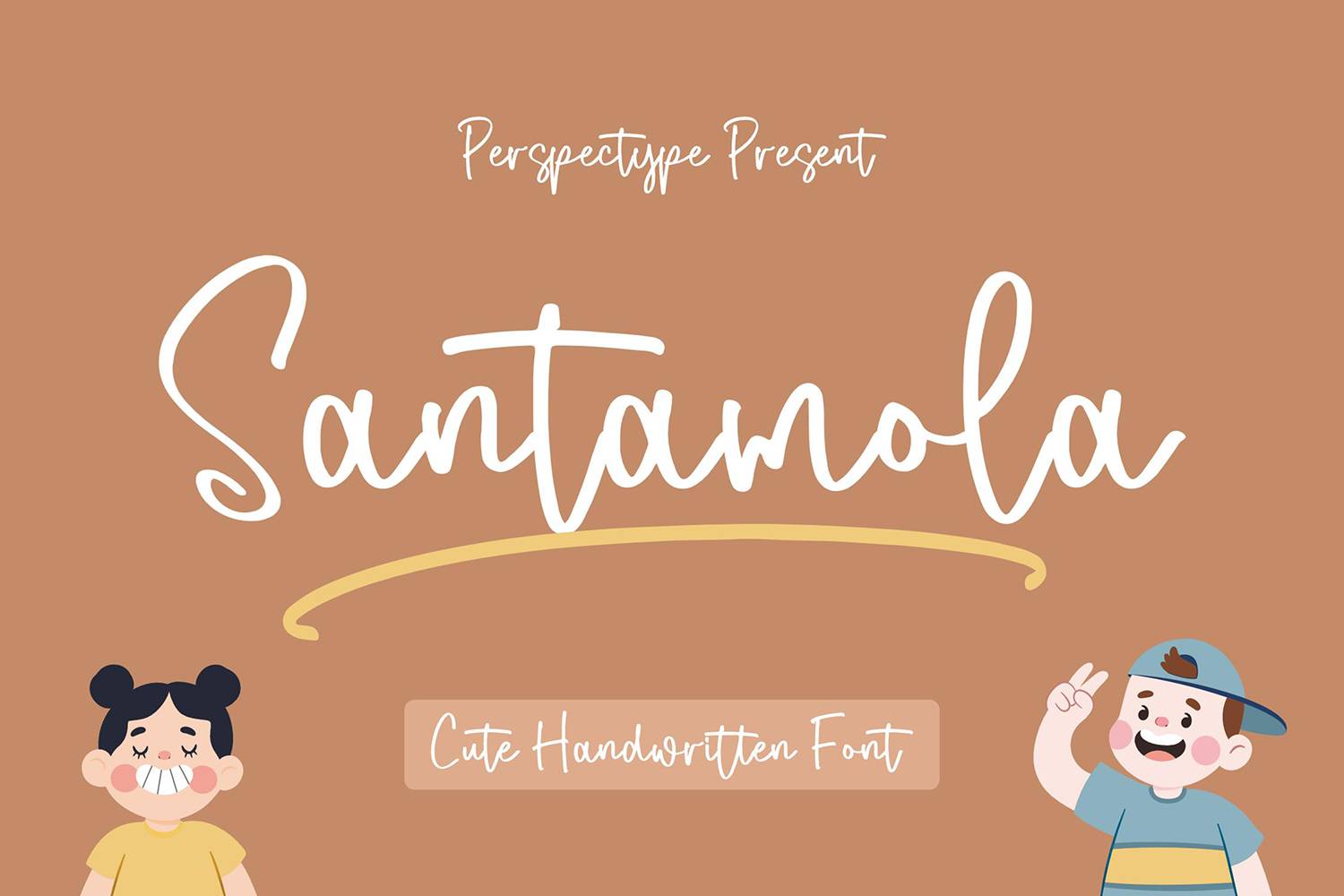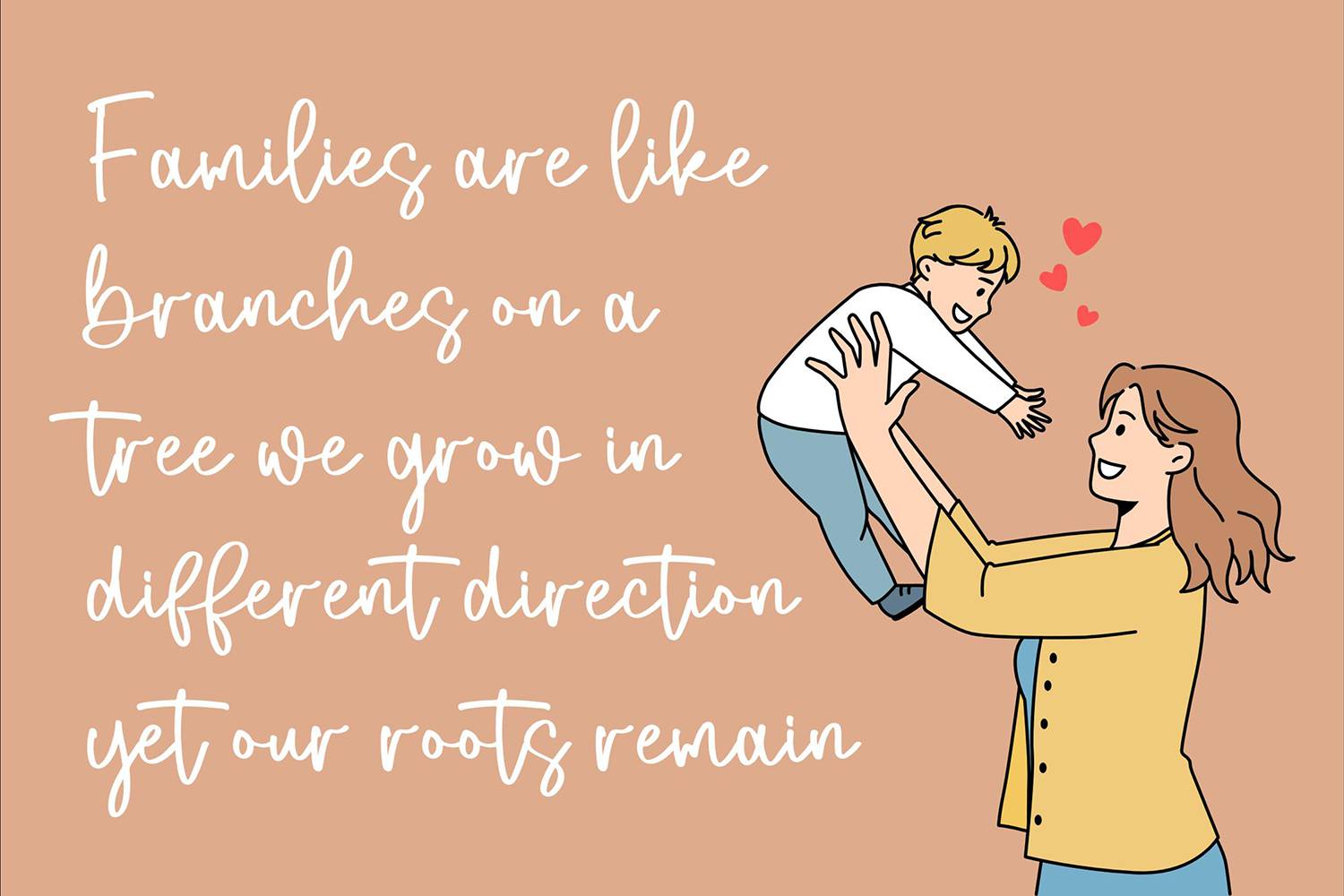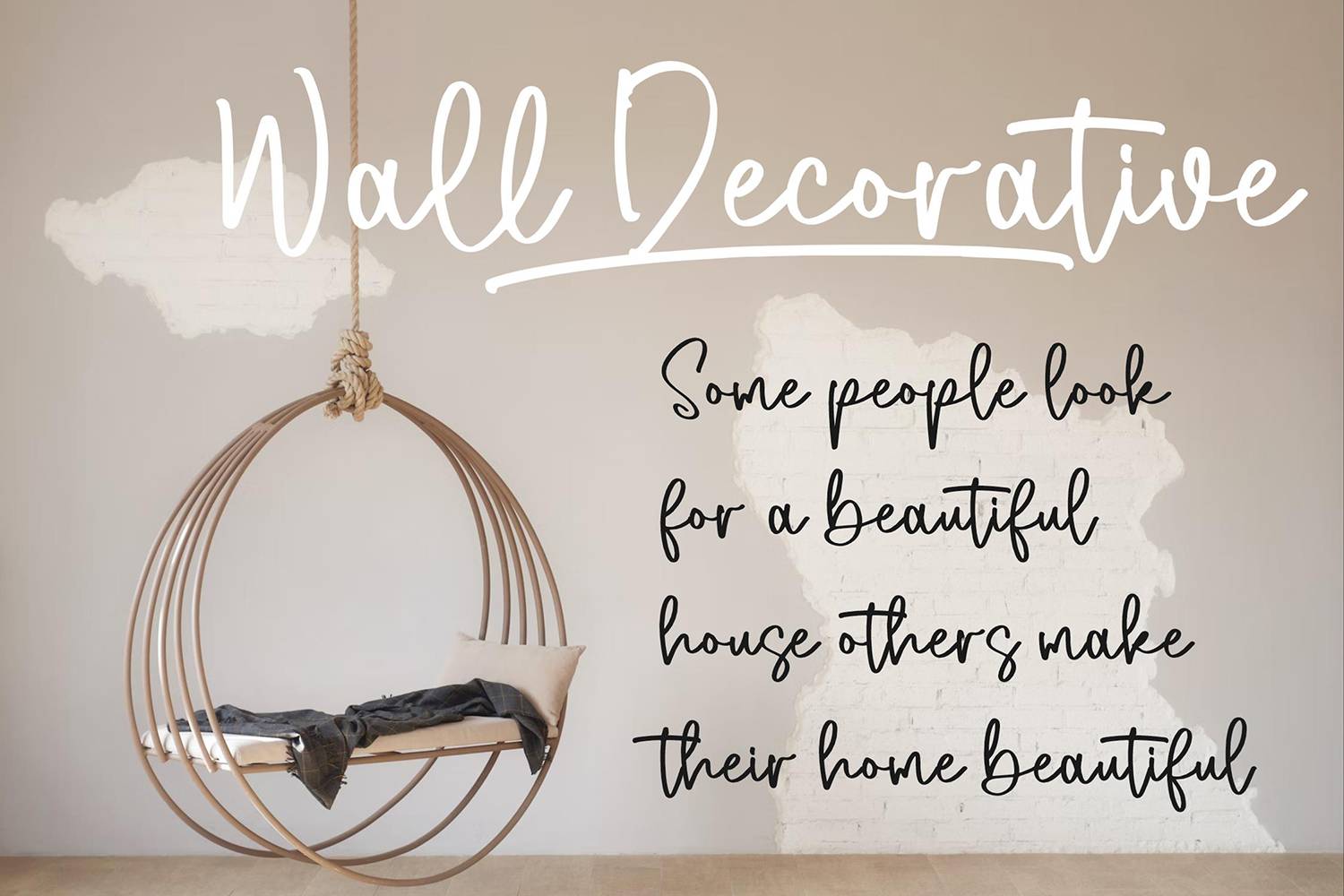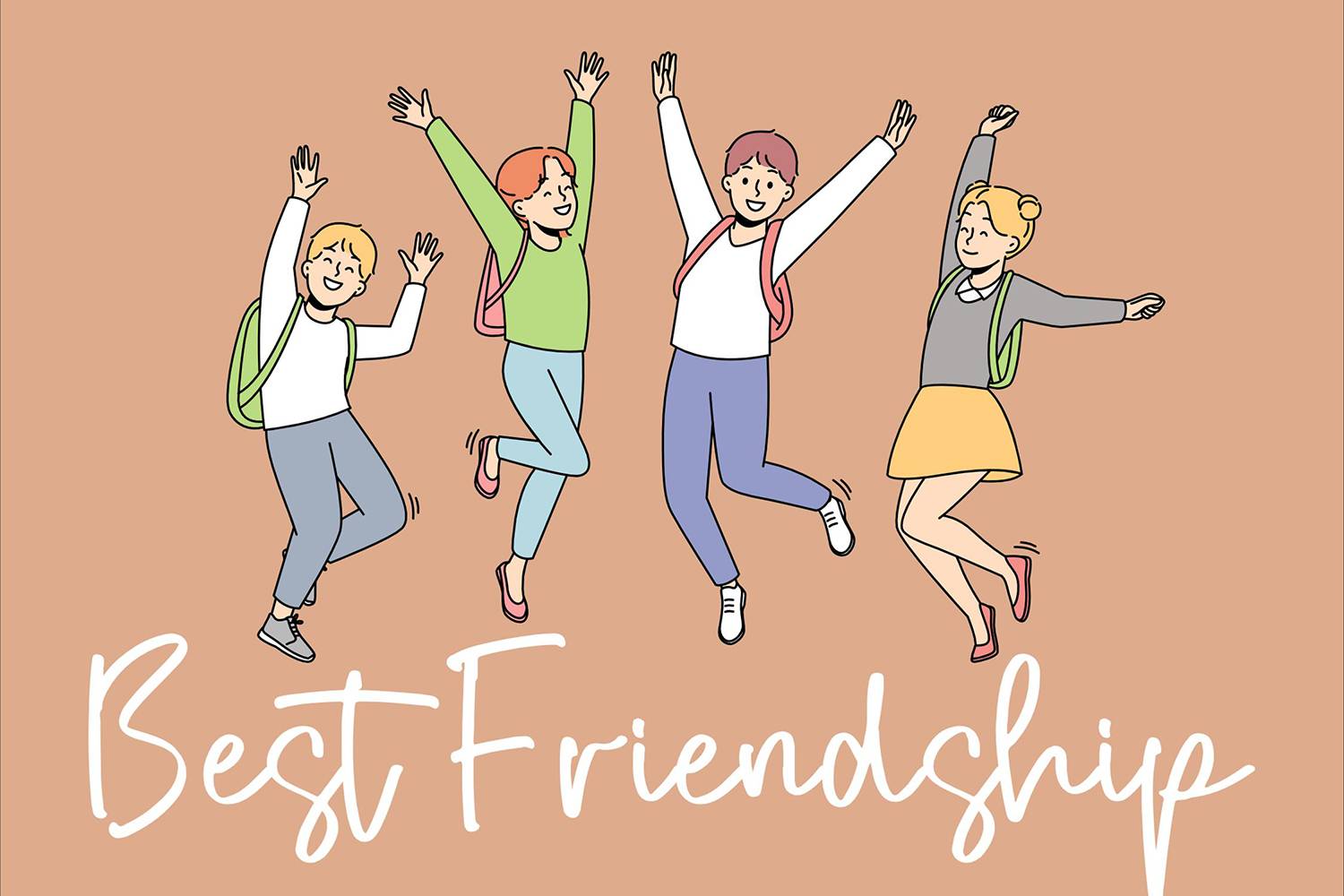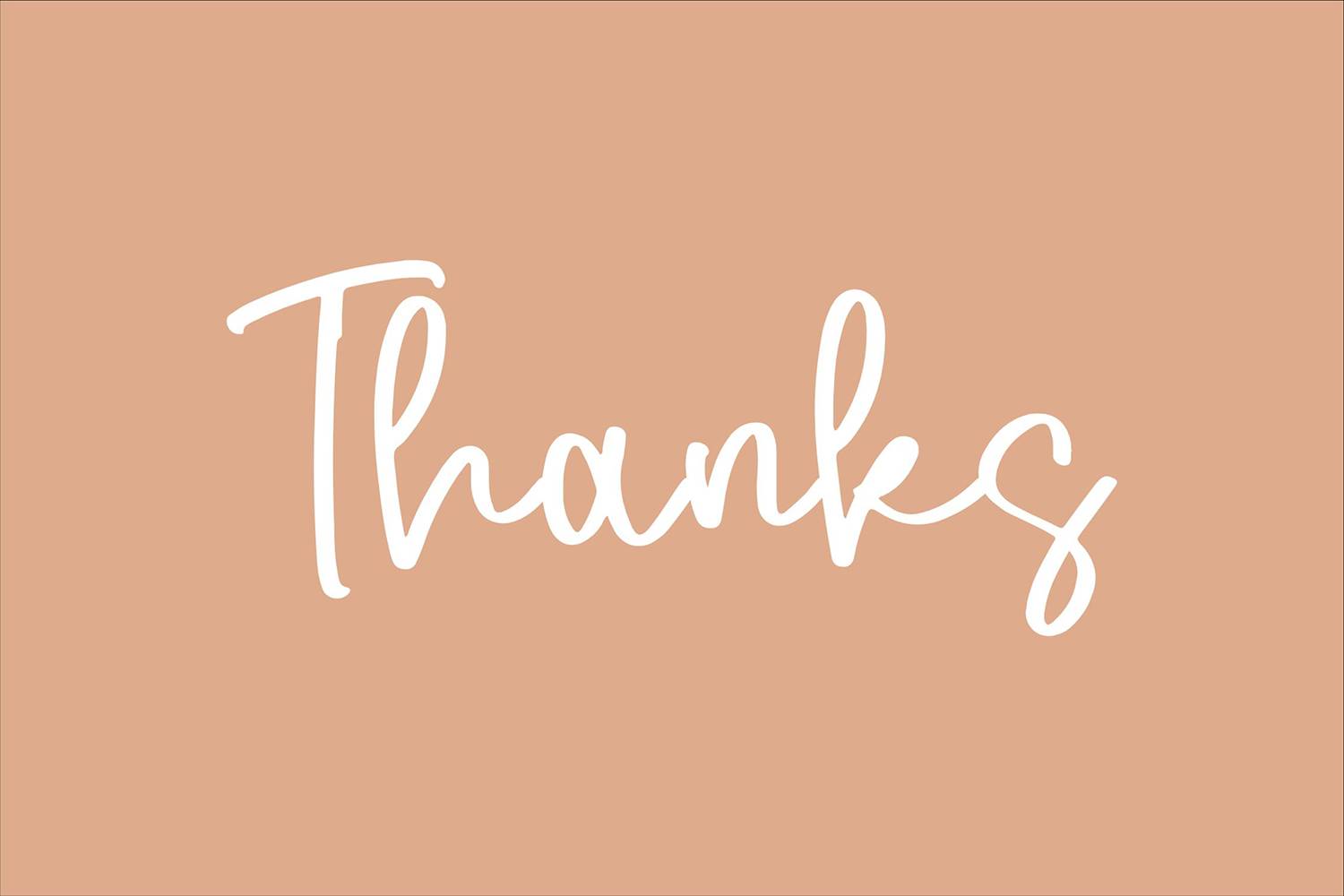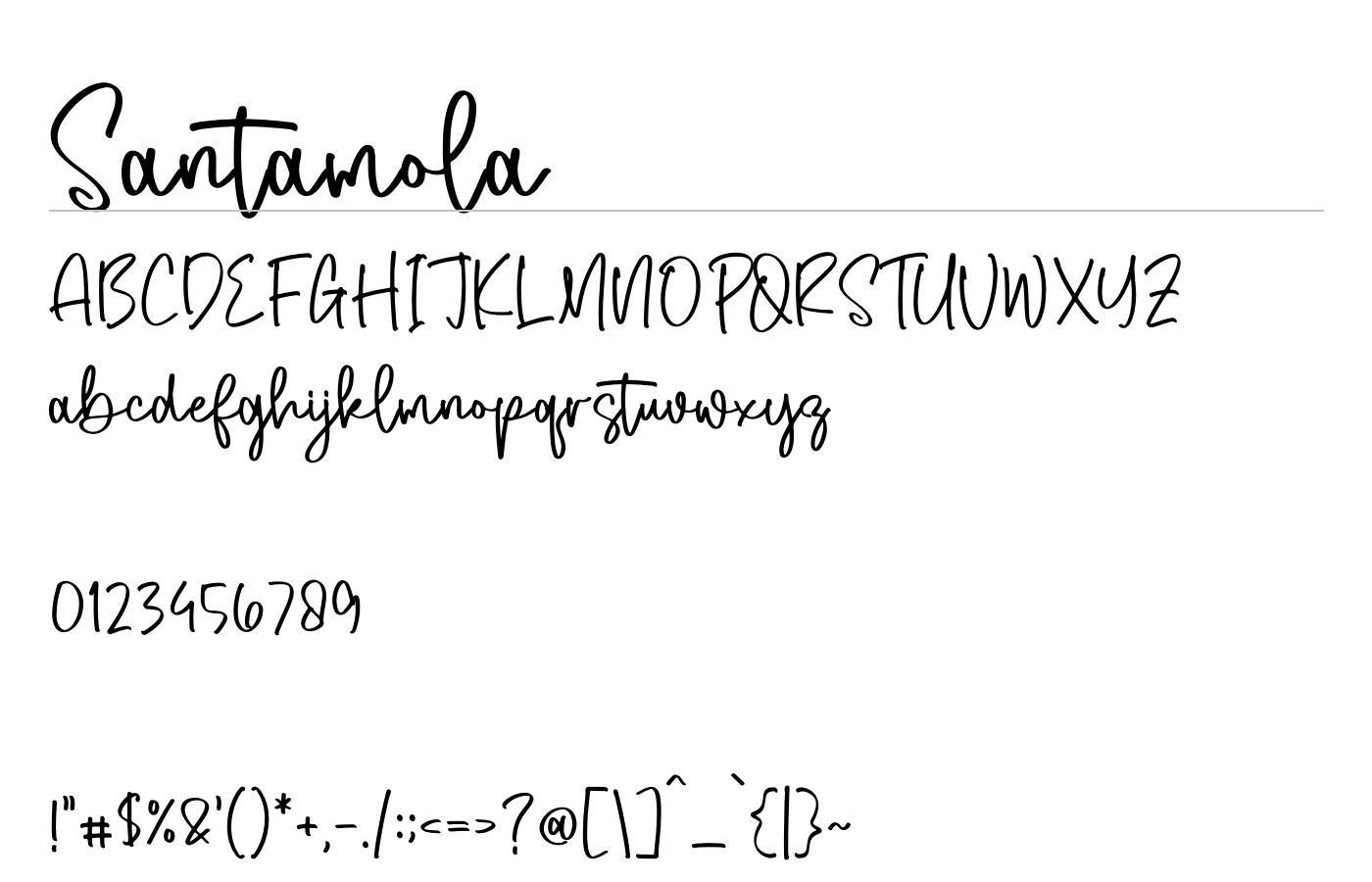
Santamola is a playful and casual handwritten script font with a light, airy feel and loosely connected strokes that add a warm, personal touch. Its tall, narrow letterforms with a mix of smooth curves and slight irregularities make it ideal for creative projects, informal branding, invitations, and social media designs where a friendly, approachable vibe is desired. This font works best in headlines and display use, bringing a charming, hand-crafted spirit to any design.
Santamola Font
About Santamola Font